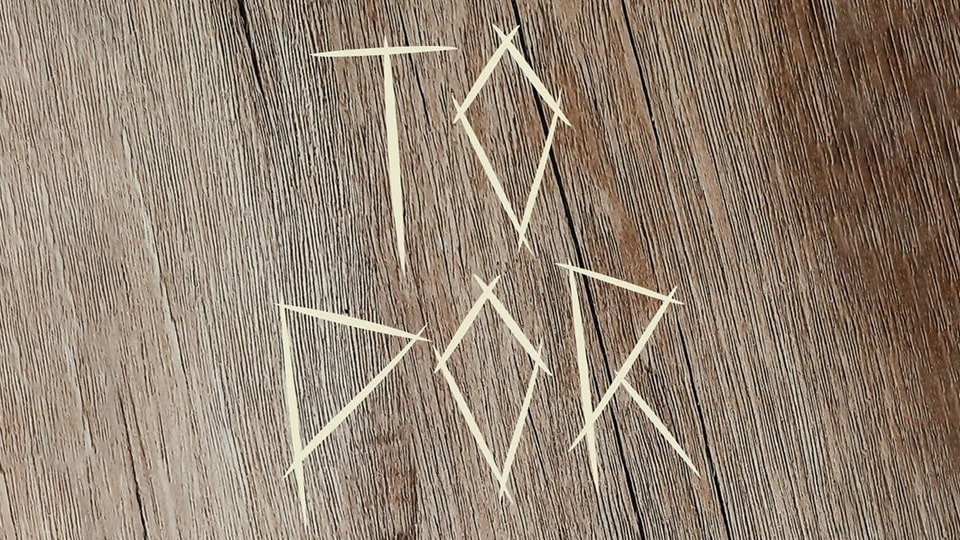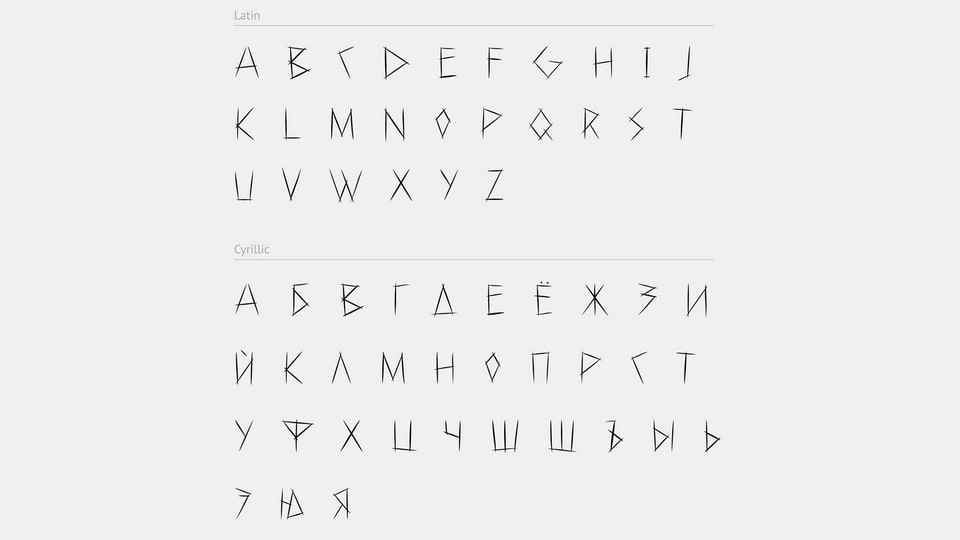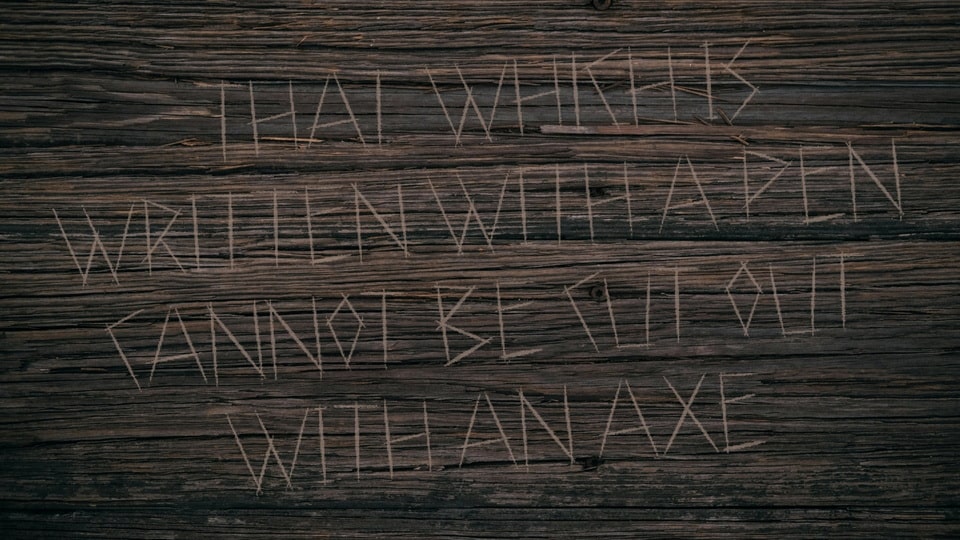
Topor is a sharp and rugged hand-crafted font chiseled with the raw energy of an ax. The font bears the marks of its creation, with jagged edges and bold lines reminiscent of wood carved with precision and strength.
With its rugged and rustic style, Topor font is perfect for projects that demand a sense of authenticity and craftsmanship. Whether you’re designing signage for a wilderness adventure, rustic-themed packaging, or bold headlines, this font adds a touch of rugged charm and boldness to your text.